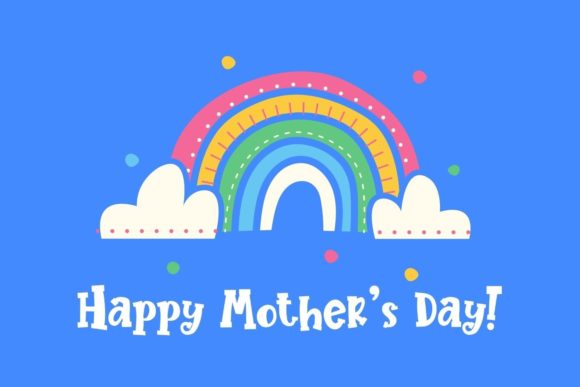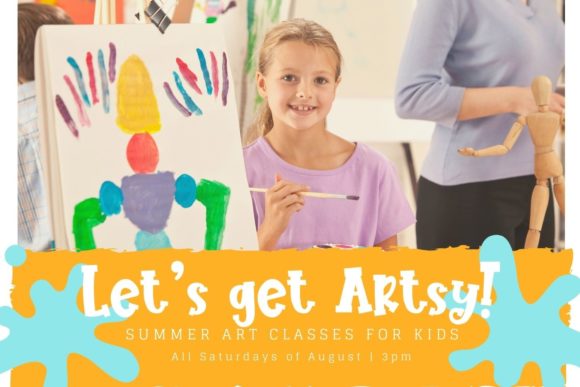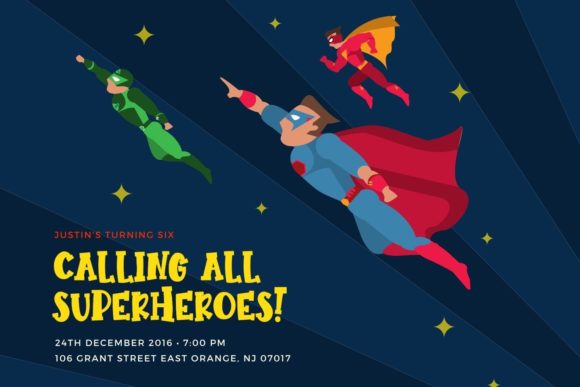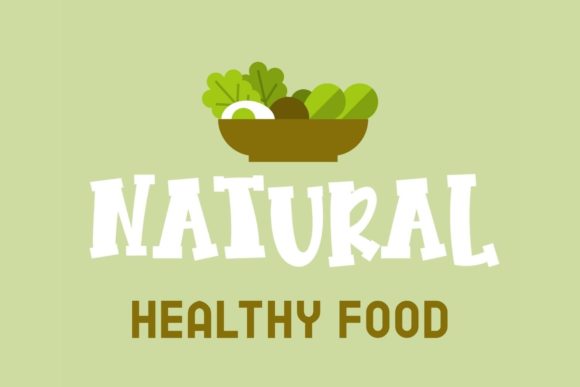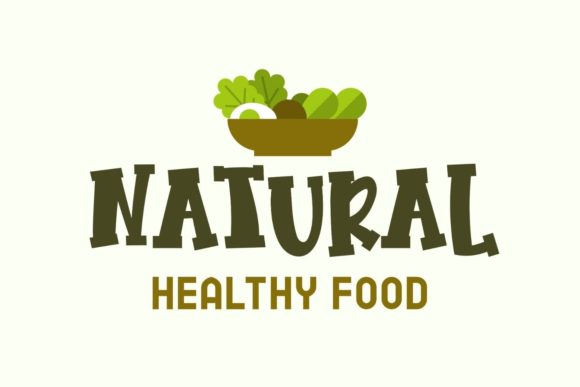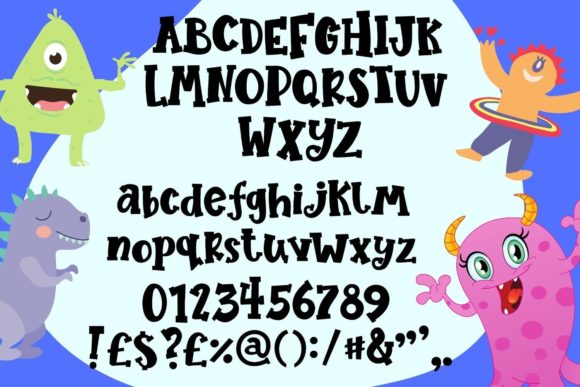
When Words Just Want to Play
You know that moment when you’re brainstorming ideas for a project and suddenly, a font pops into your head? It’s like the universe is nudging you towards something special. For me, that moment happened when I stumbled upon the Bonkers Font. This delightful display font has a way of making any design project feel like a fun playground, where creativity knows no bounds.
Bonkers Font is more than just a pretty face – it’s a reliable companion for designers who want to convey a sense of friendliness and approachability. Whether you’re working on a digital design, a presentation, or a handmade craft, this font has got you covered. Its versatility and charm make it an invaluable addition to any designer’s toolkit, and once you’ve tried it, you’ll wonder how you ever managed without it.
Bonkers Font Key Features
- Font Family: Bonkers Font is a sans-serif font family with a unique, playful twist.
- Unique Characteristics: Bonkers Font features a distinctive, hand-drawn feel with exaggerated lines and shapes, making it perfect for adding a touch of whimsy to designs.
Bonkers Font Review
I’ve had the chance to play around with the Bonkers Font, and I’ve got some thoughts to share. Overall, I think it’s a unique and fun font that could be perfect for the right project.
- The font’s playful, whimsical feel is infectious and could add a lot of character to a design.
- The bold and italic styles are well-implemented, and the font’s irregularities add to its charm.
- The font’s size and spacing options are also well-thought-out, making it easy to adjust to different contexts.
- The font’s irregularities, while charming, can also make it difficult to read in certain contexts, especially at smaller sizes.
- The font’s lack of a standard, plain style means it may not be suitable for all types of content, such as formal documents or technical writing.
- The font’s high contrast between light and dark elements can sometimes make it difficult to read, especially for users with visual impairments.
Overall, I think the Bonkers Font is a great choice for designers who want to add a bit of personality to their projects. While it may not be the best choice for every project, it’s definitely worth considering for those that need a fun, eye-catching font.
Tip: Use Bonkers Font to add a playful touch to your social media graphics, flyers, and posters.
Tip: Use Bonkers Font to create eye-catching headlines and titles for your branding and marketing materials.
Tip: Use Bonkers Font to add a playful touch to your presentations and reports.
Bonkers Font is perfect for:
- Social media graphics and flyers
- Posters and banners
Remember to use Bonkers Font in moderation to avoid overwhelming your audience.